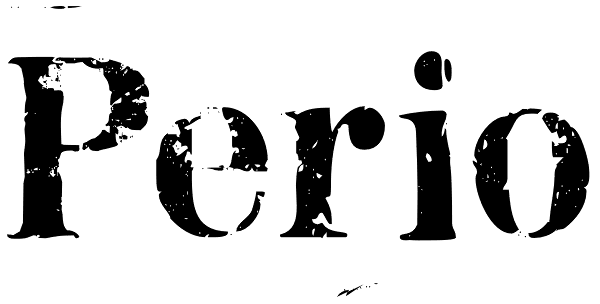
Perio
Perio is a small family, offering a distressed rendering of a conventional serif typeface in 4 varieties. There's Ordinary, All Caps, Small Caps, Clean and Jumbled. Many of the letters contain little bits of extra print around the body of the...
Perio Clean
Perio Caps
Perio SC
Perio Jumbled
Perio